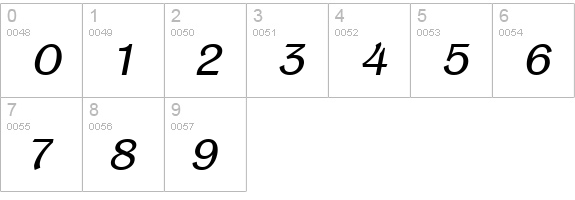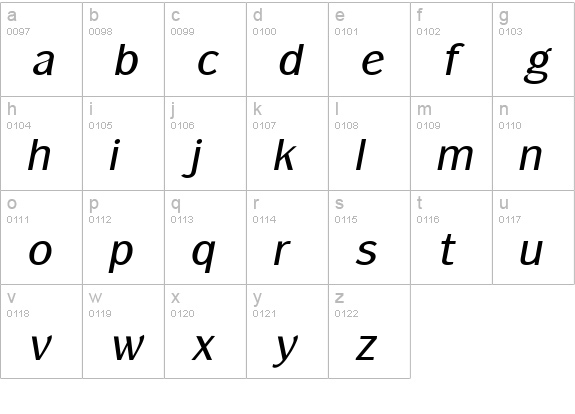
Panache Italic is a distinctive, italic variant in the Panache typeface family \xE2\x80\x94 well suited to design and typography projects.
Panache Italic is a beautifully crafted font that exudes elegance and sophistication. Its unique and distinctive italic style adds a touch of flair to any design project, making it perfect for those seeking a font that stands out from the crowd. With its graceful curves and delicate strokes, Panache Italic captures the essence of classic handwriting, giving your text a refined and polished look. Whether you're designing invitations, creating logos, or crafting elegant typography, this font is sure to elevate your work to new heights. One of the best things about Panache Italic is that it is free. Yes, you read that right! This amazing font is freely available to download at FontsMarket.com. Now you can add a touch of panache to your designs without having to spend a dime. So why wait? Download Panache Italic today and let your creativity soar. Whether you're a professional designer or a hobbyist, this font will surely become your go-to choice for adding a touch of sophistication and style to your projects. Don't miss out on this incredible opportunity to enhance your designs with Panache Italic - the perfect font for those who appreciate beauty and elegance.